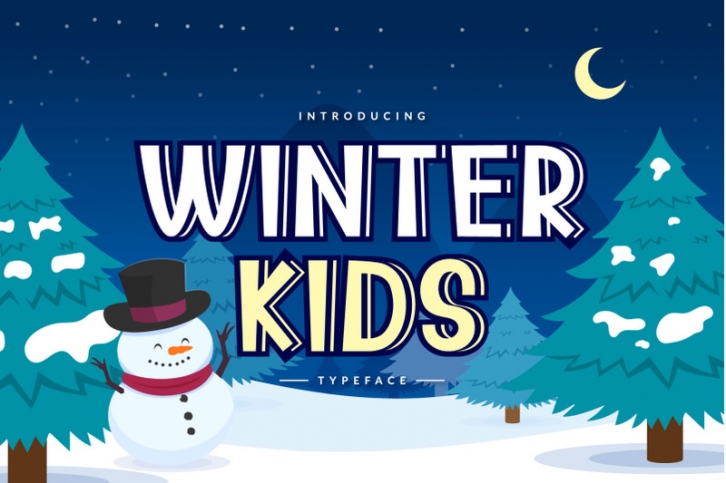
winter Kids is a playful and friendly display font. Its natural and unique style makes it incredibly fitting to a large pool of winter or holiday related designs.